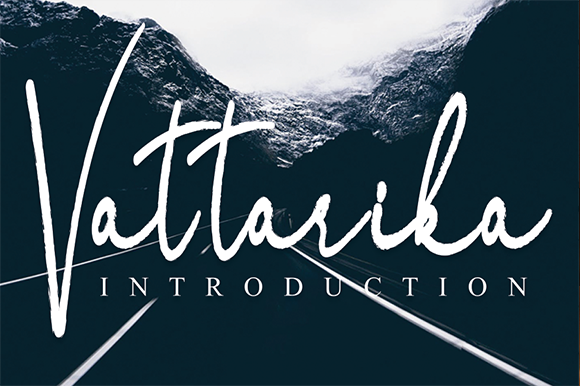
Welcome to the enchanting world of Vattarika, where creativity flows effortlessly through your designs! Discover the magic of this exceptional script font, meticulously crafted to elevate your branding, social media presence, and personal projects to new heights.
Immerse yourself in the captivating strokes of Vattarika, a font that whispers stories with every letter. Its casual elegance and playful charm will ignite your imagination, inviting you to create captivating graphics that stand out from the crowd. Whether you're a seasoned designer or simply seeking a touch of inspiration, Vattarika is the perfect companion for your creative endeavors.
Picture your logos adorned with the whimsical curves of Vattarika, instantly capturing attention and leaving a lasting impression. Envision your social media posts transformed into captivating works of art, engaging your audience with every scroll. Let Vattarika become your secret weapon for creating unforgettable DIY projects, adding a touch of personal flair to everything you make.
Unleash the power of Vattarika today and experience the joy of bringing your creations to life. With its versatile nature, Vattarika effortlessly adapts to your every need, becoming the perfect font for a wide range of projects. Embrace the beauty of handwritten charm and let Vattarika guide you towards design greatness.
Don't settle for ordinary fonts. Choose Vattarika and unlock the gateway to extraordinary creativity. Let your imagination soar and create designs that captivate and inspire. Embrace the magic of Vattarika and transform your designs into masterpieces that tell unforgettable stories.